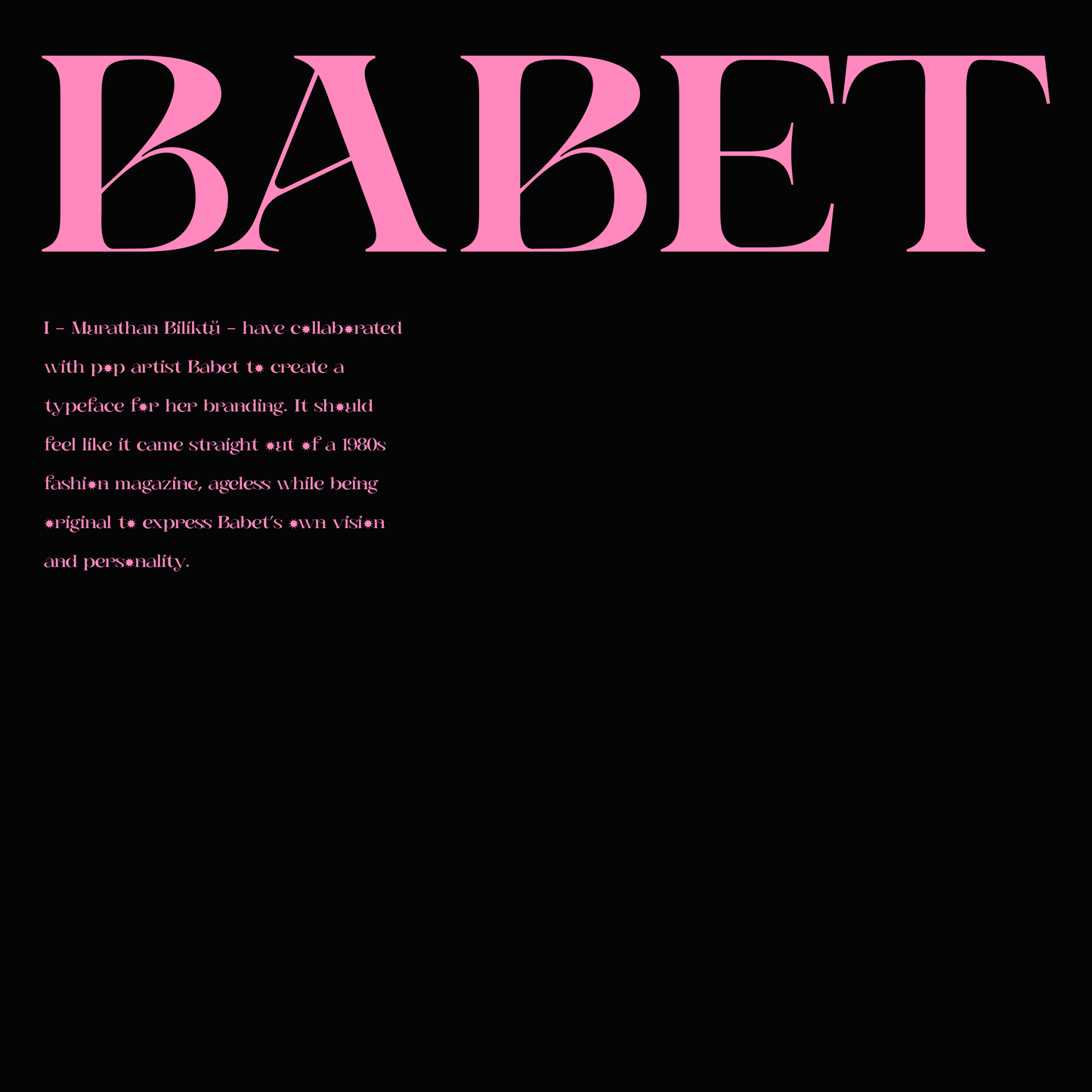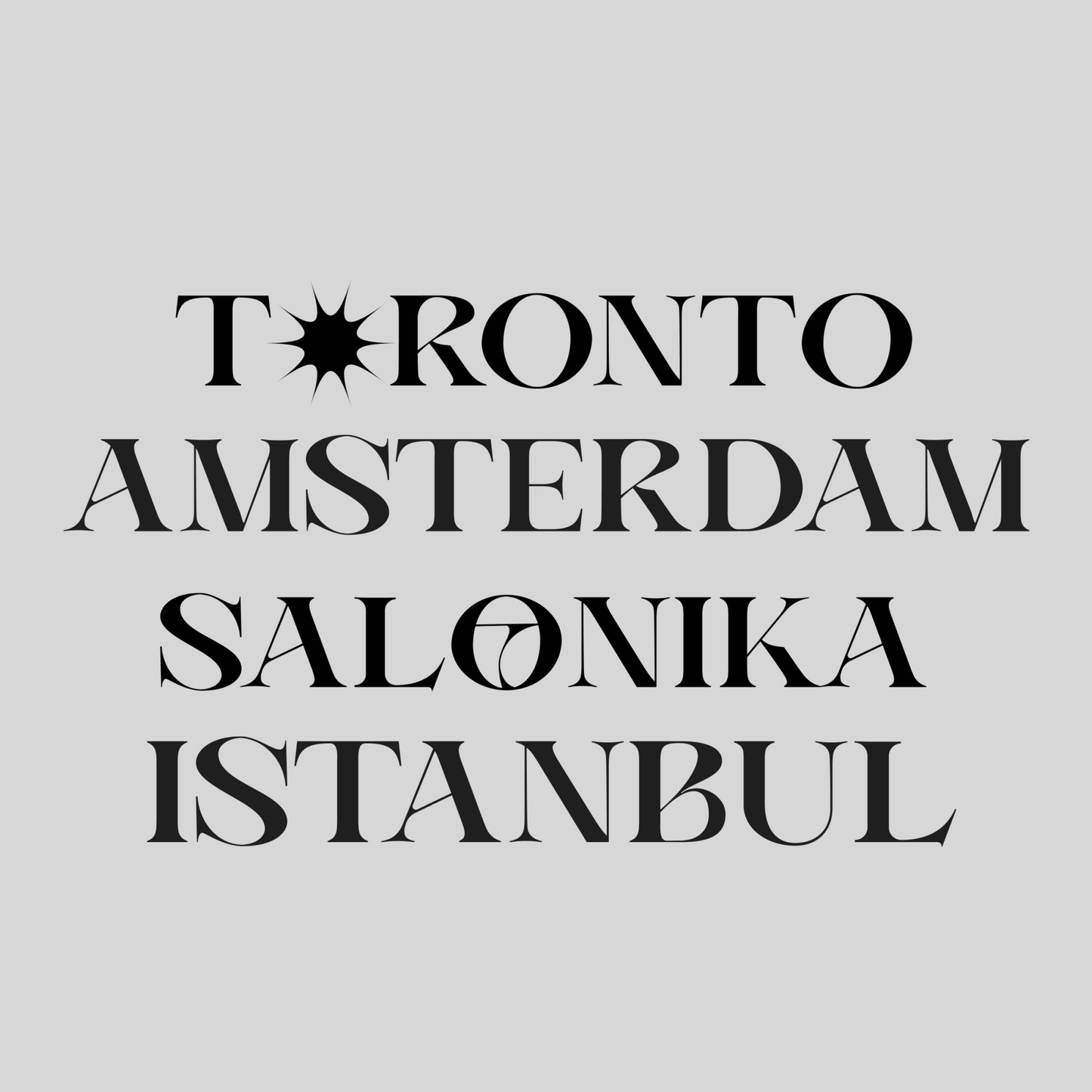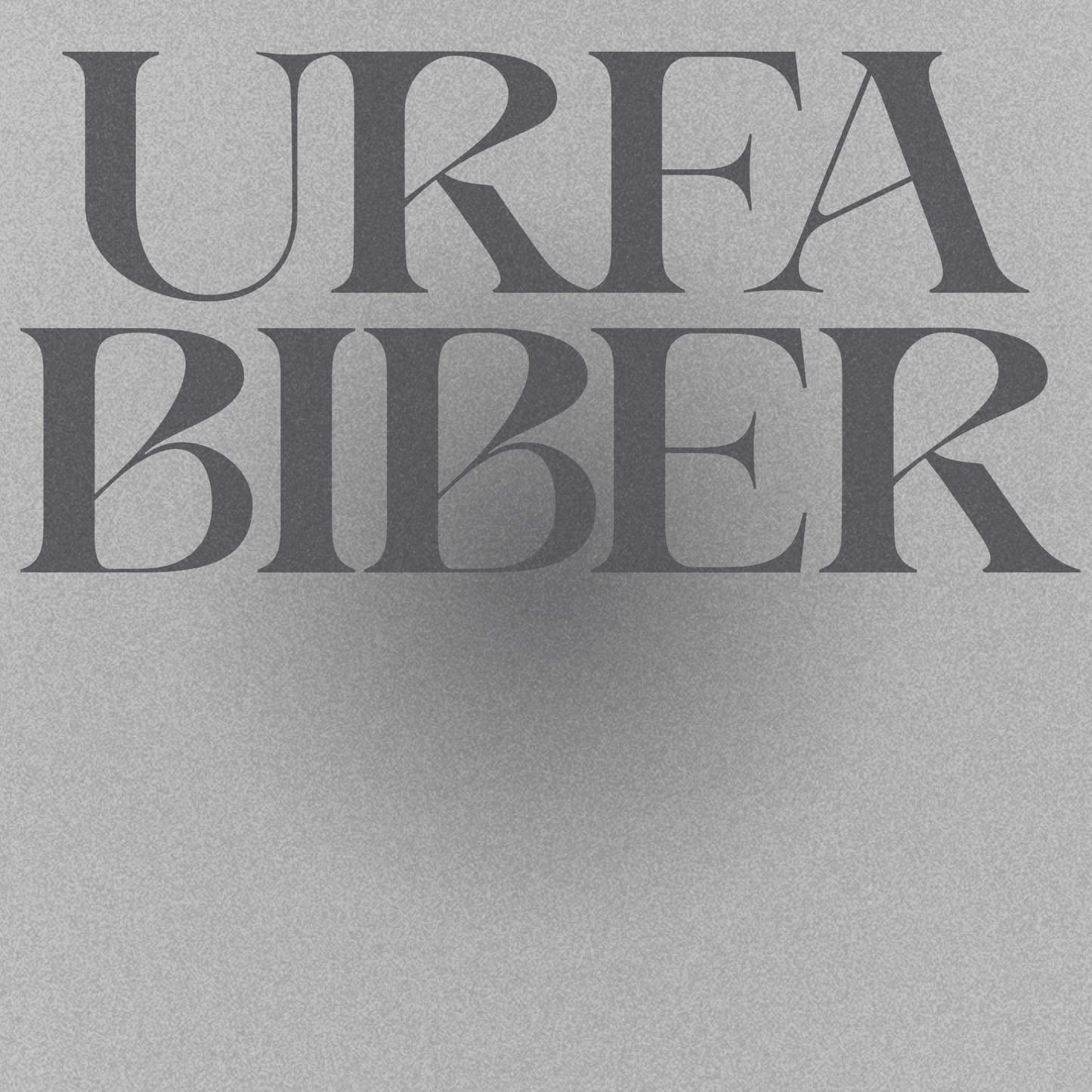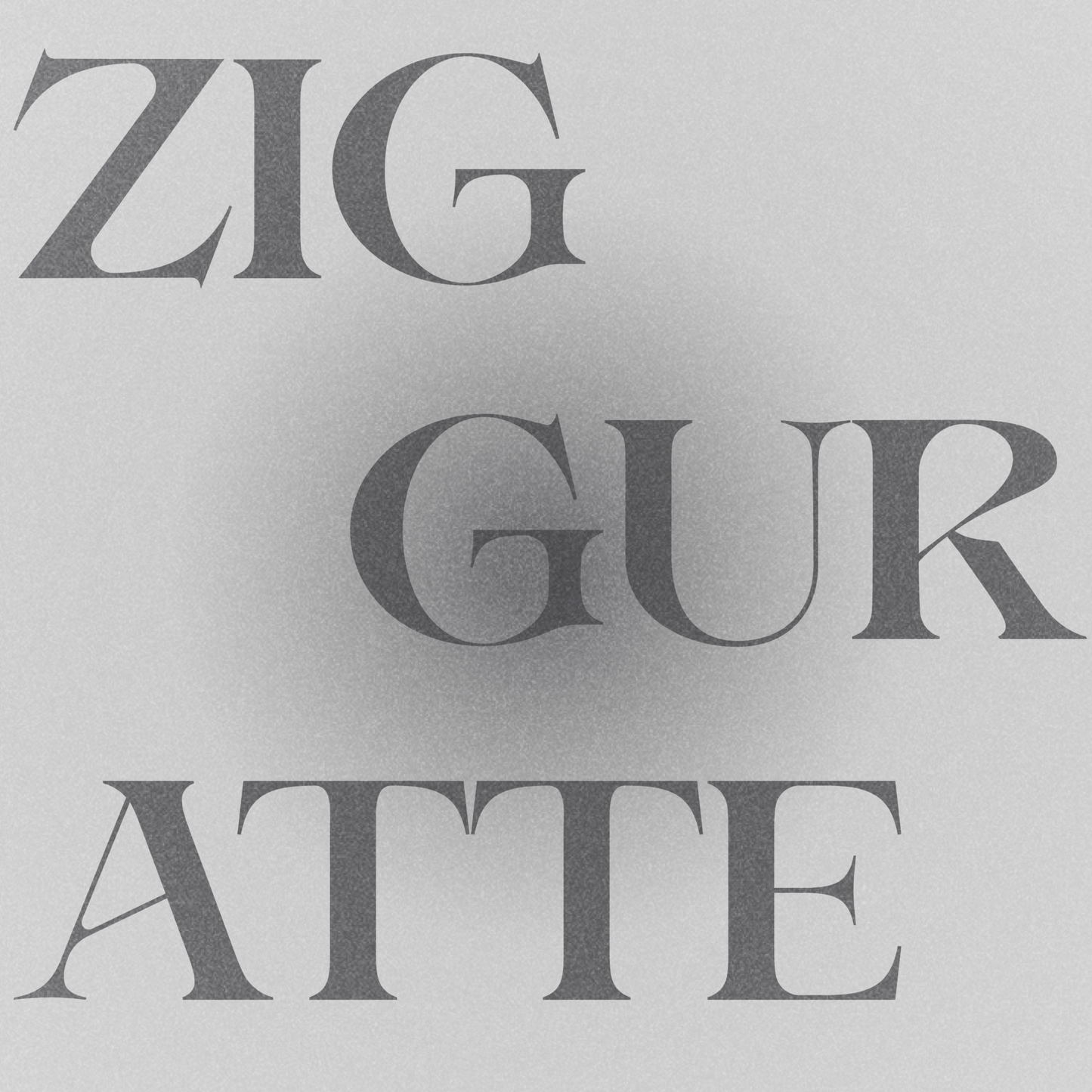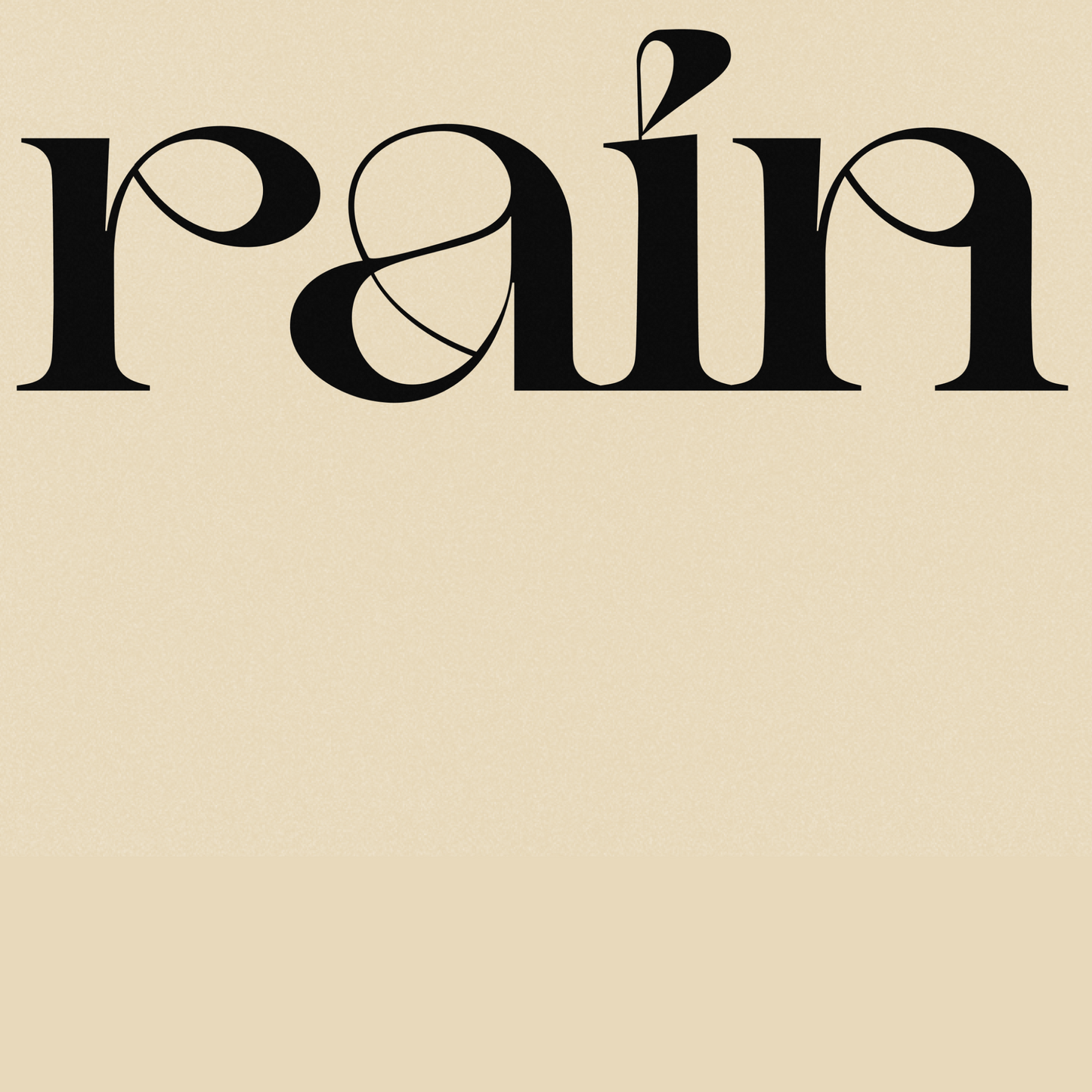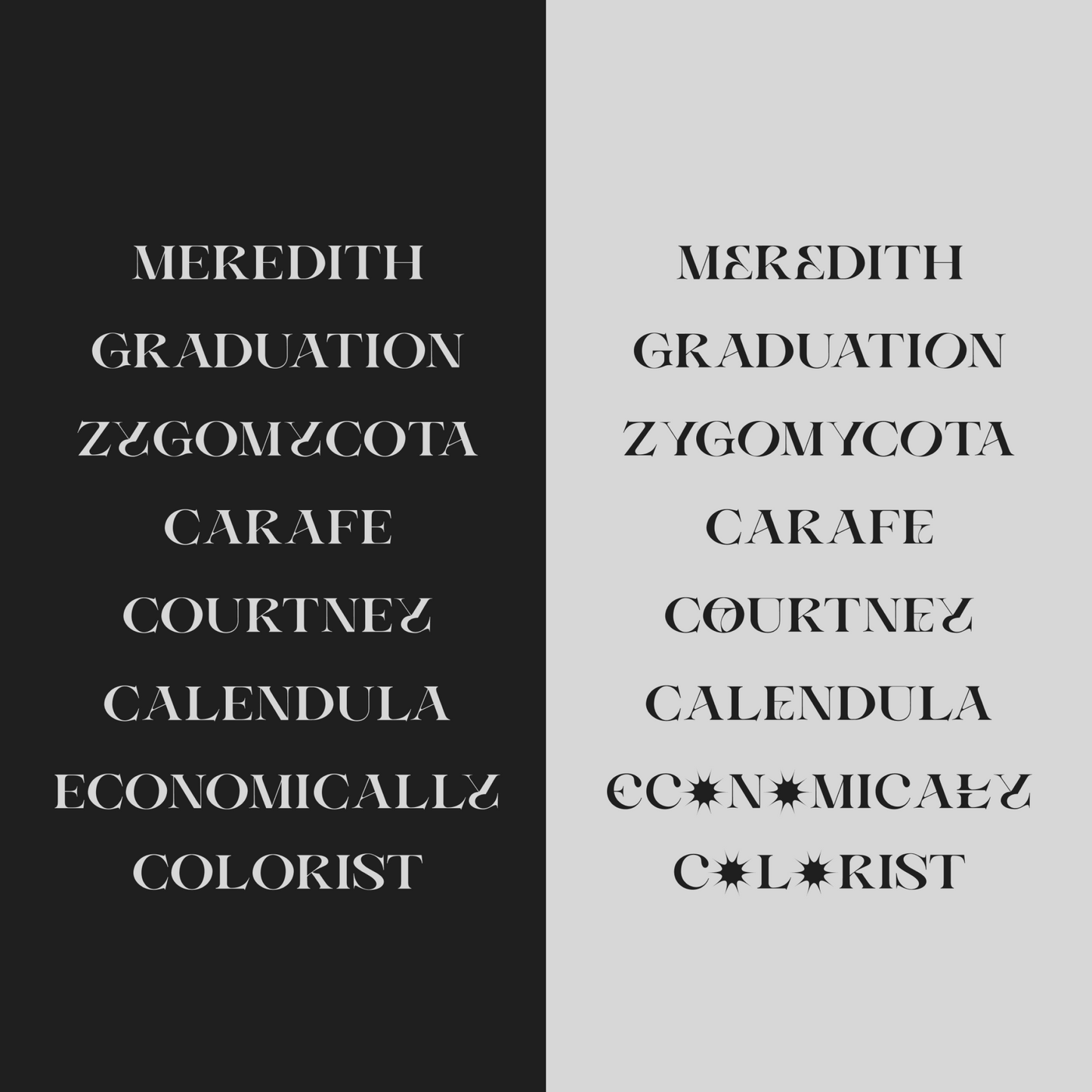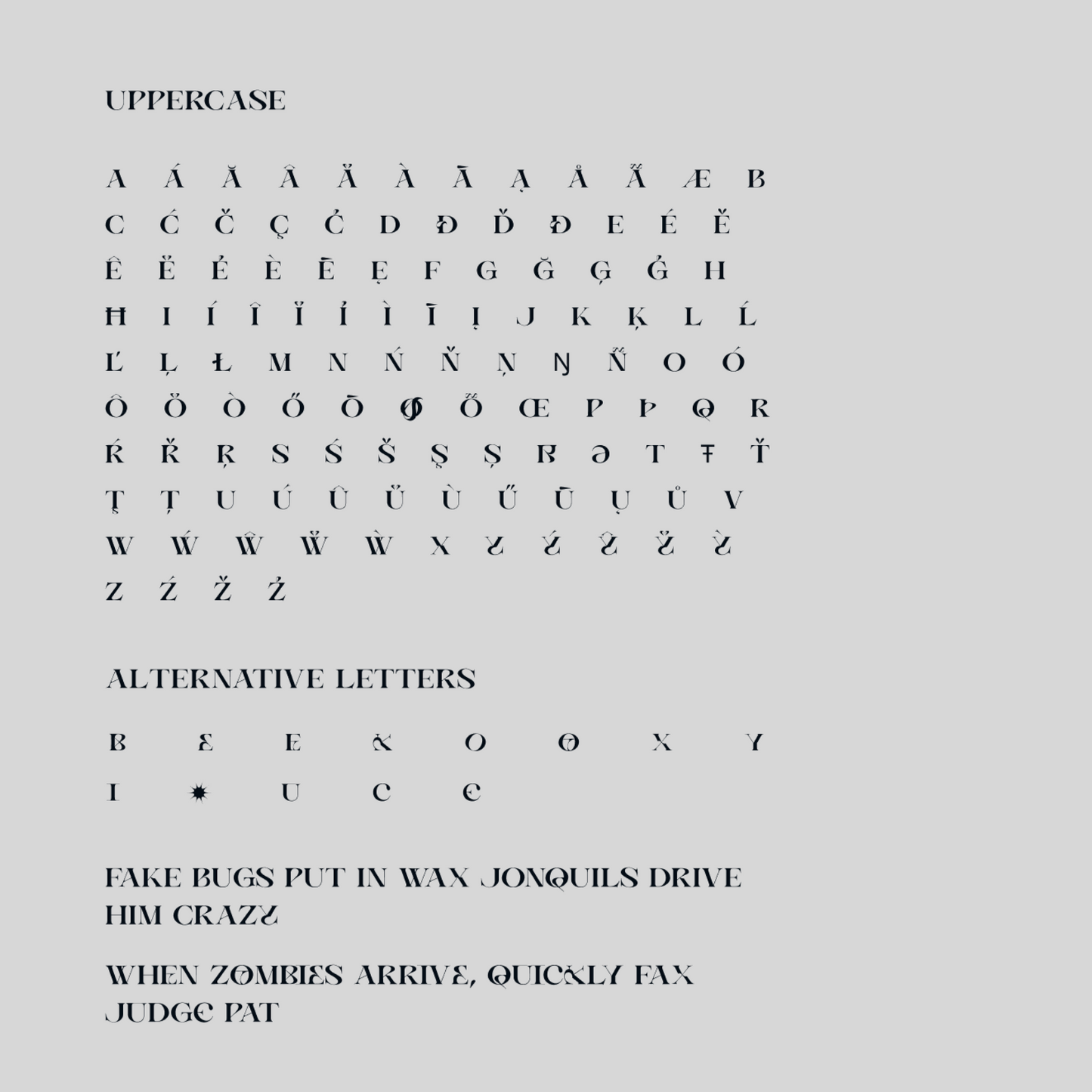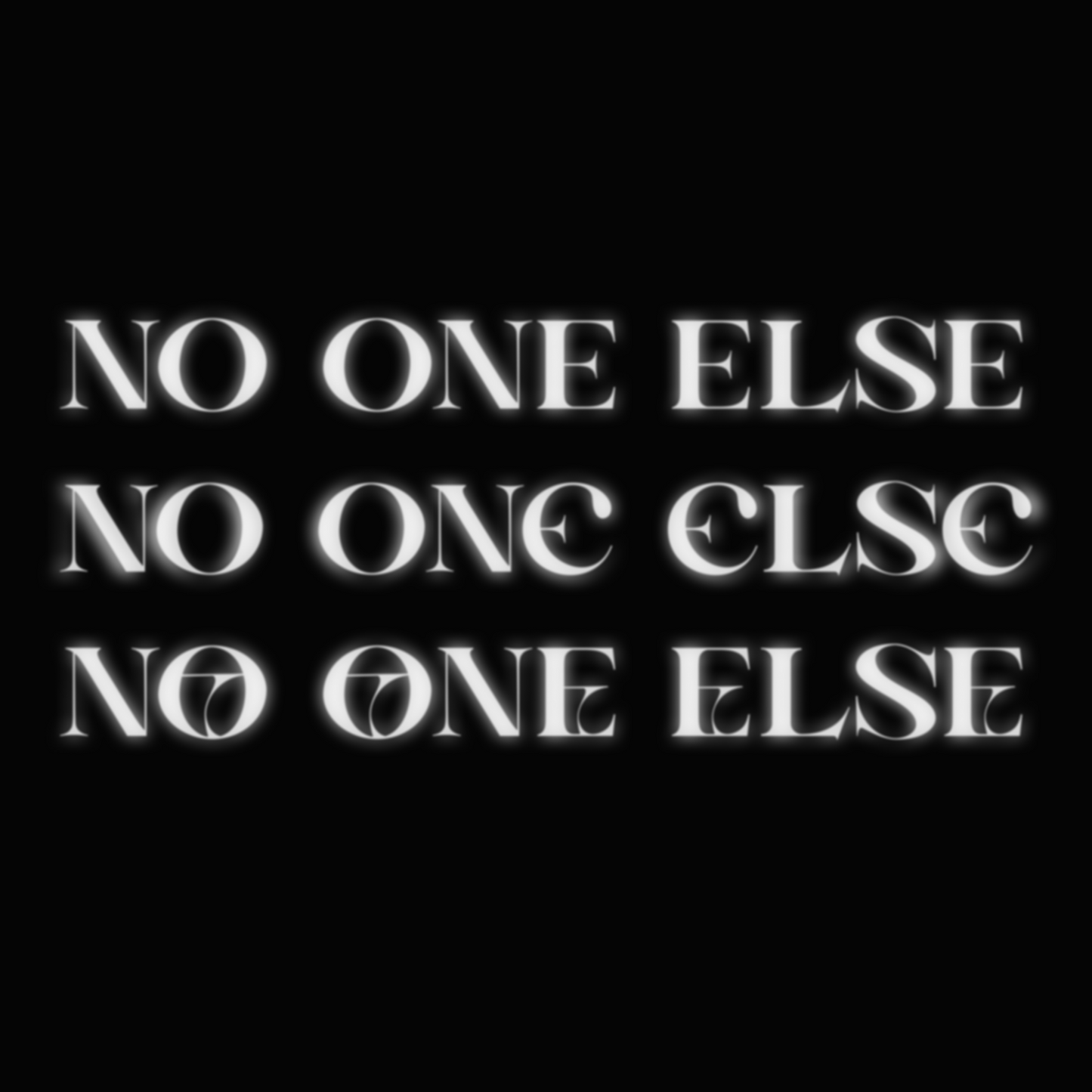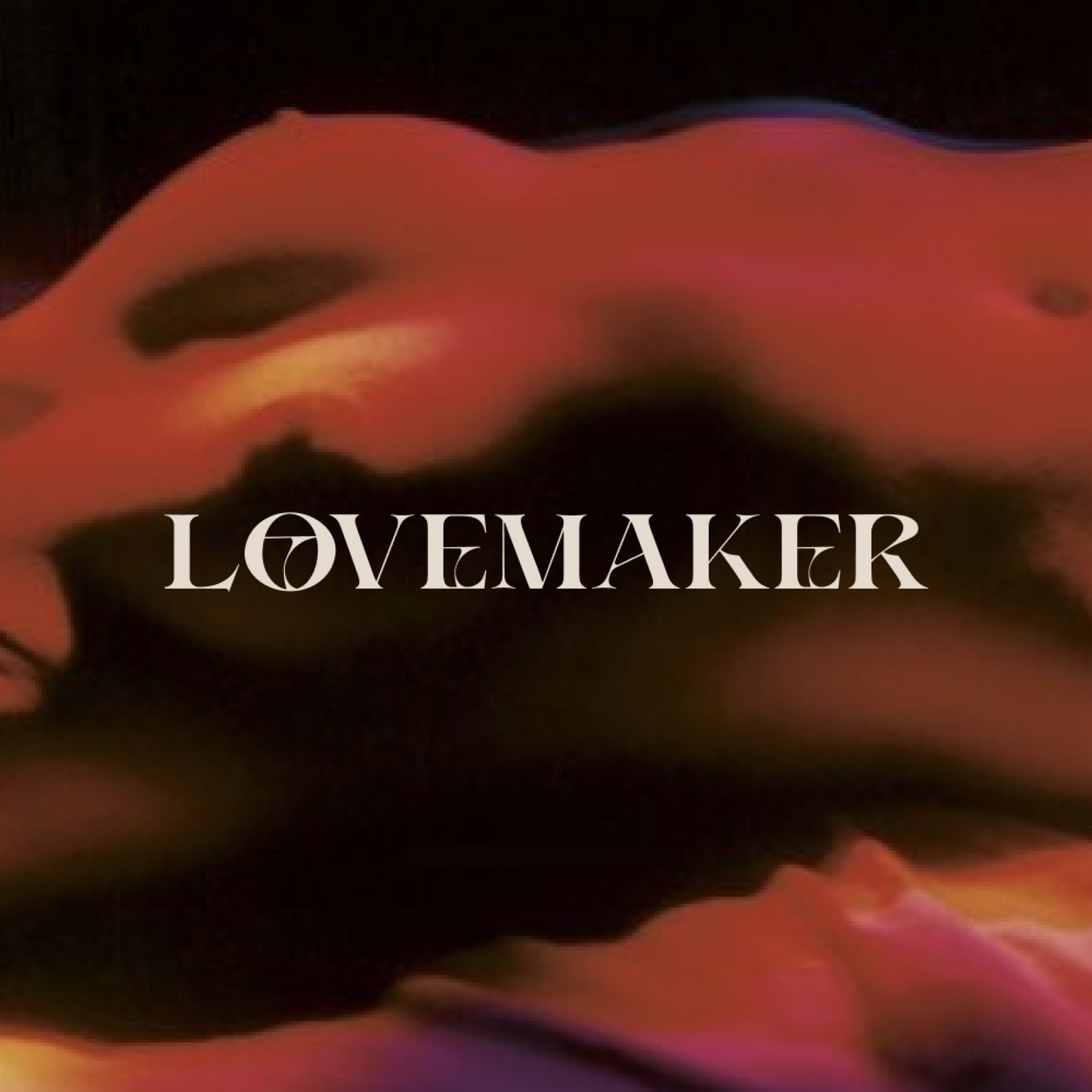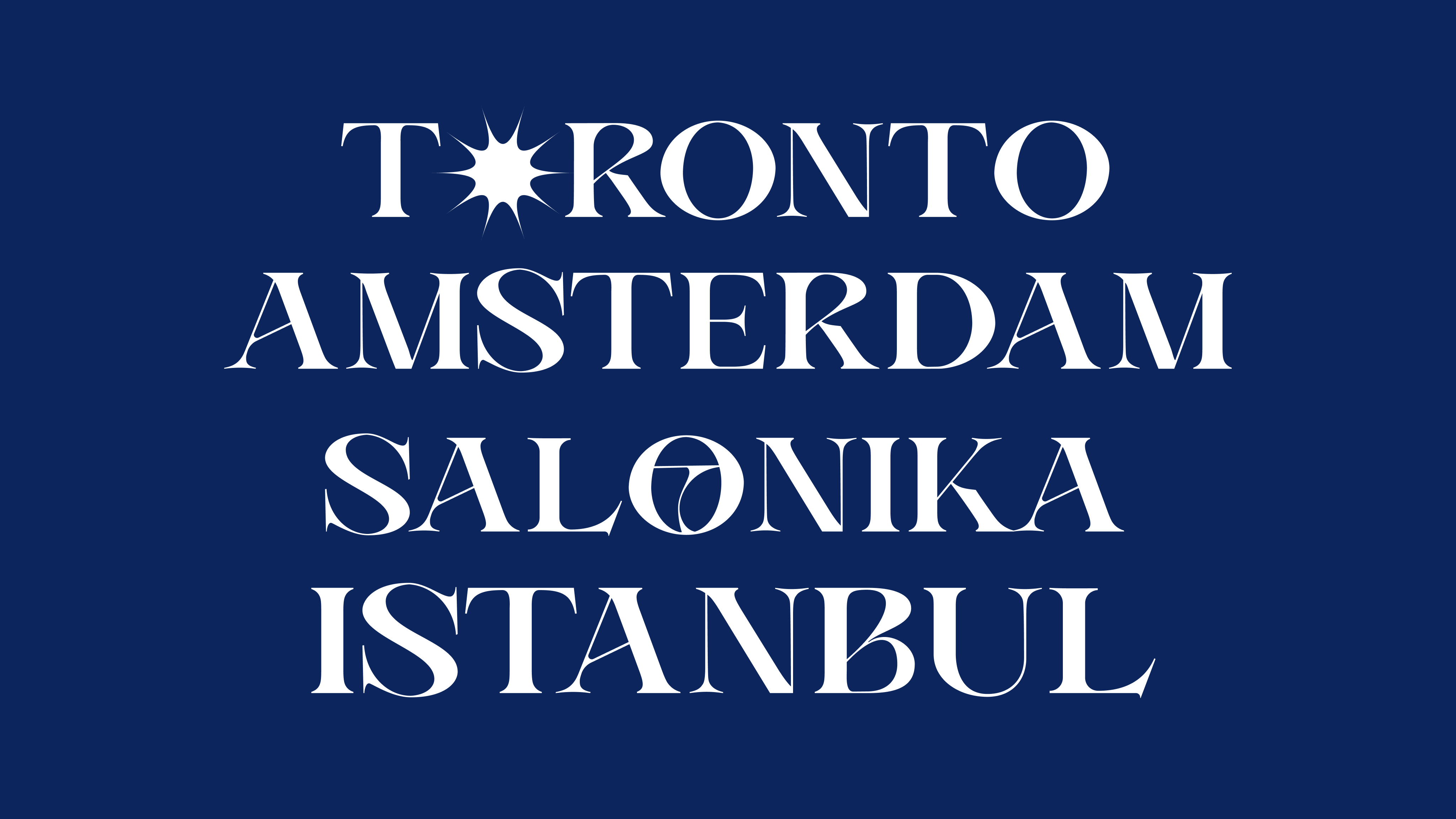
BM  Babet
Murathan Biliktü
BM Babet
A collaboration with Babet (@heyimbabet) to create a timeless yet unique typeface inspired by 1980s fashion magazines.
—UPPERCASE, LOWERCASE
—31 LIGATURES
—OPENTYPE FEATURES WITH ALTERNATES AND SUBSTITUTES